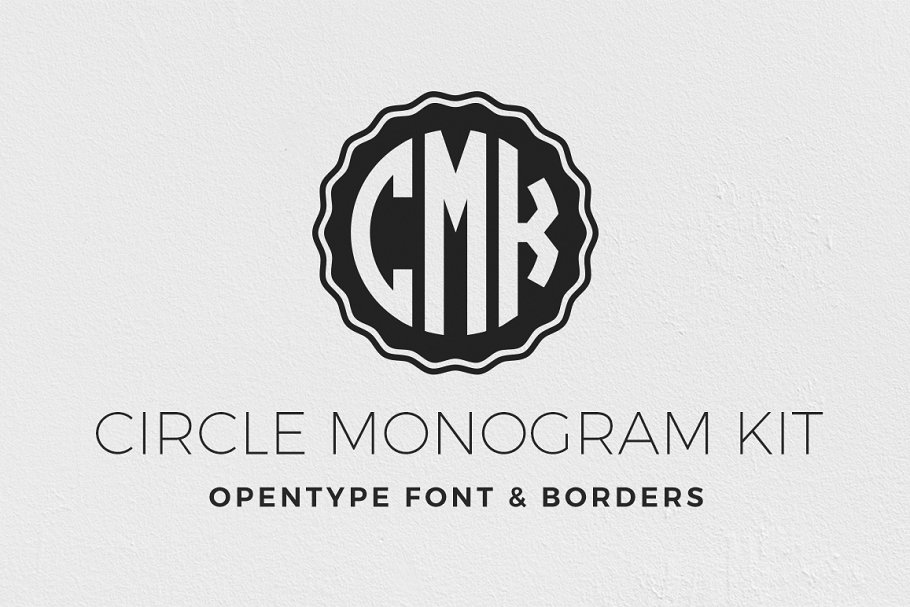
Welcome to the Circle Monogram Font Kit! This collection contains everything you need to create stunning and personalized circle monograms that are perfect for desk name plates, wedding invitations, and any other project you have in mind. Created by Medialoot, this font kit includes an intelligent OpenType circle monogram font, as well as 16 editable vector circle borders in Illustrator, SVG, and Sketch formats.
With this font kit, you can easily create beautiful circle monograms by simply typing your letters and choosing your favorite border to complete the design. We even have a new 2 letter font version that is compatible with all of the borders, allowing you to create shorter monograms that still pack a punch.
Our Circle Monogram font is unlike any other circle monogram font out there. It includes all 26 letters of the alphabet with left, center, and right variations to form a full circle monogram. Plus, all of the letter forms are included in a single font file, making it incredibly easy to use. We even provide a legacy version split into left, center, and right for compatibility purposes.
This font also takes advantage of an OpenType feature called Contextual Alternates, which automatically forms the circle monogram shape when the feature is enabled. You can use this font in any application that supports OpenType features, including Word, Pages, Photoshop, and Illustrator.
In addition to the Circle Monogram font, we also include a set of 16 predesigned unique circle borders that are perfect for combining with your circle monogram. These borders are 100% vector and have editable stroke widths for customizability.